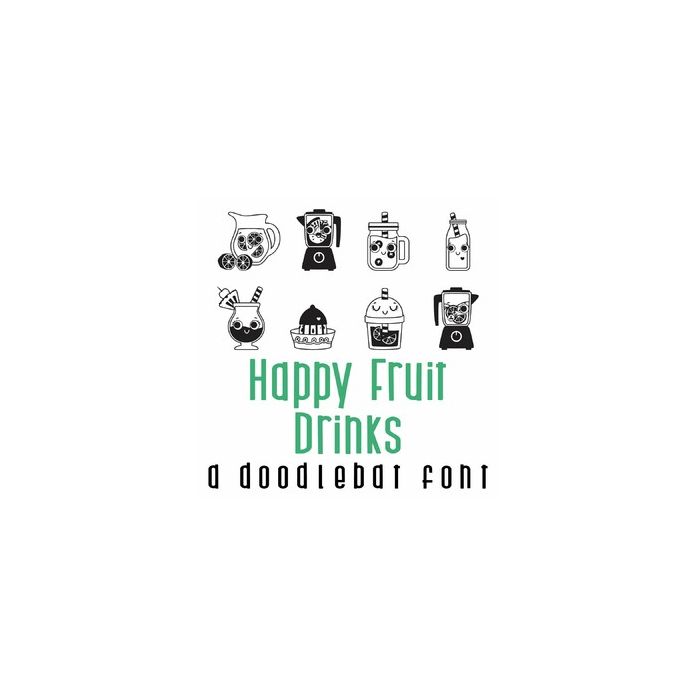
This fun doodlebat font features 26 kawaii style fruit drinks and cocktails. Perfect for cards, gifts, decor, crafts, scrap book pages, planner stickers and more!